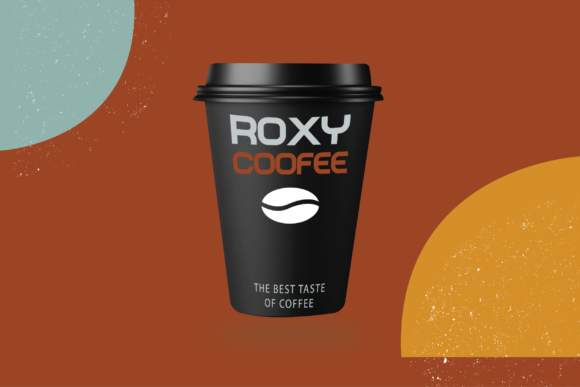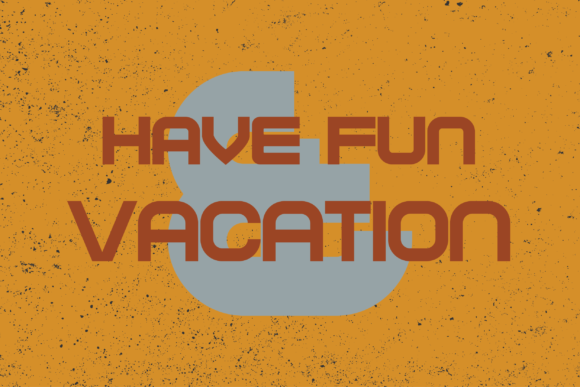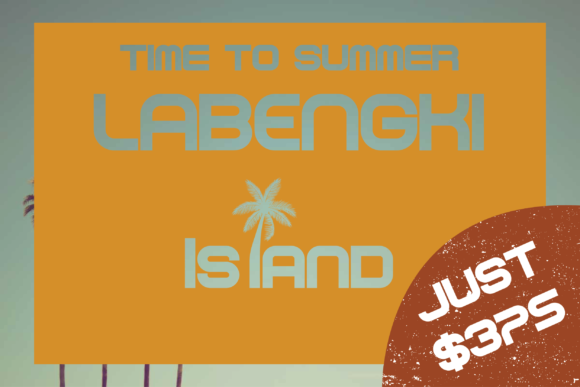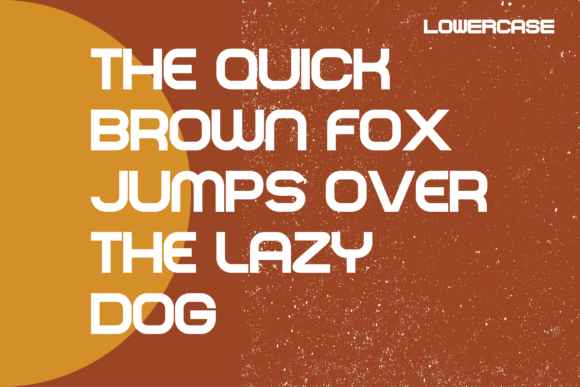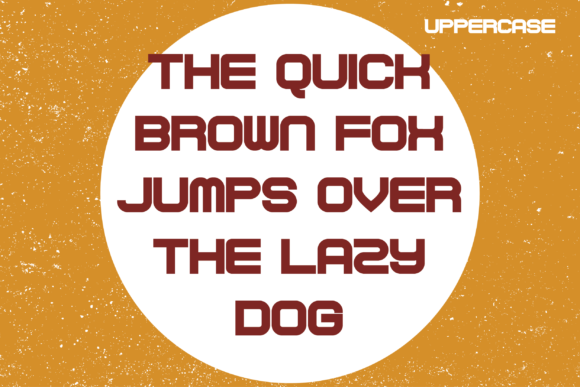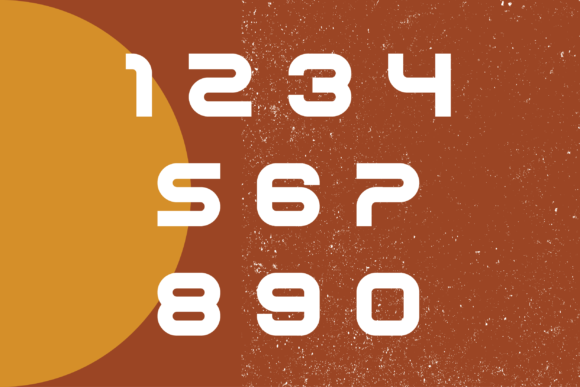
Introduction to Labengki Island Font Font
Fonts play a crucial role in design, and the Labengki Island Font font is a typeface that brings both character and versatility to any project. Whether you’re working on a branding project, a website, or a print design, the Labengki Island Font font offers a unique style that can elevate your work.
Labengki Island is a cool, modern and robotic display font.
This font is ideal for writing web designs, business cards, or pretty much anything else that requires a unique touch .
Key Features of Labengki Island Font Font
Why Choose Labengki Island Font Font?
The Labengki Island Font font is more than just a typeface – it’s a design tool that helps you communicate your message with style and clarity. Its unique character set and versatile design make it suitable for a wide range of applications, from elegant invitations to bold headlines.
With its carefully crafted letterforms and balanced proportions, the Labengki Island Font font ensures readability and visual appeal across all mediums.
What makes Labengki Island Font font special?
The Labengki Island Font font stands out with its unique design, exceptional readability, and versatility across various design applications.